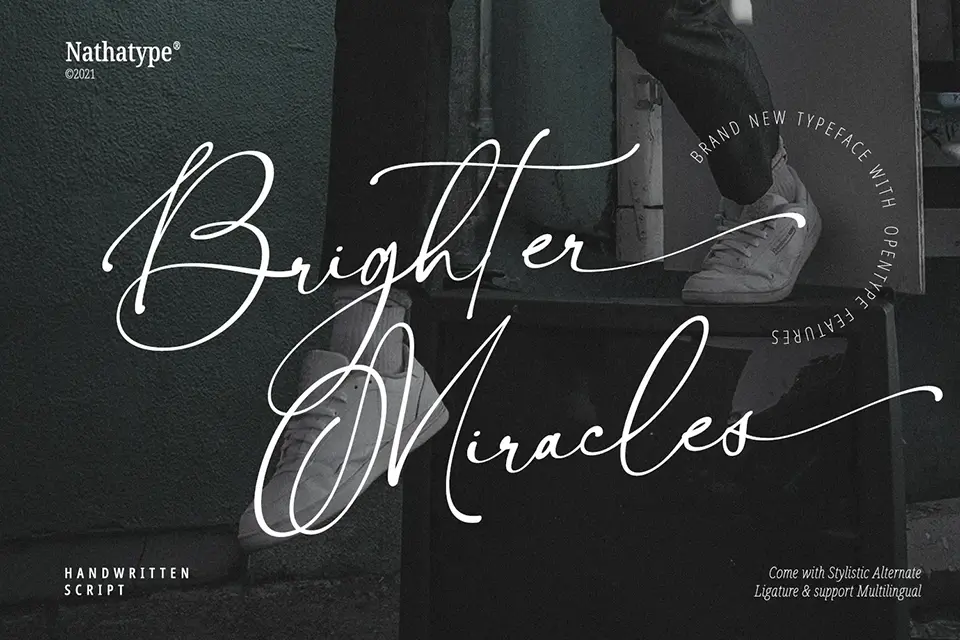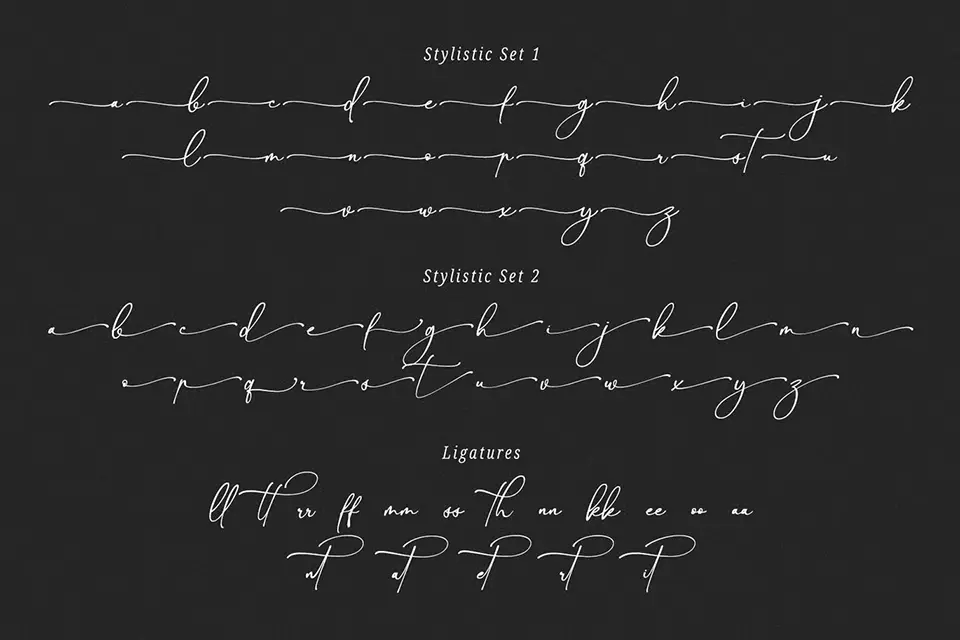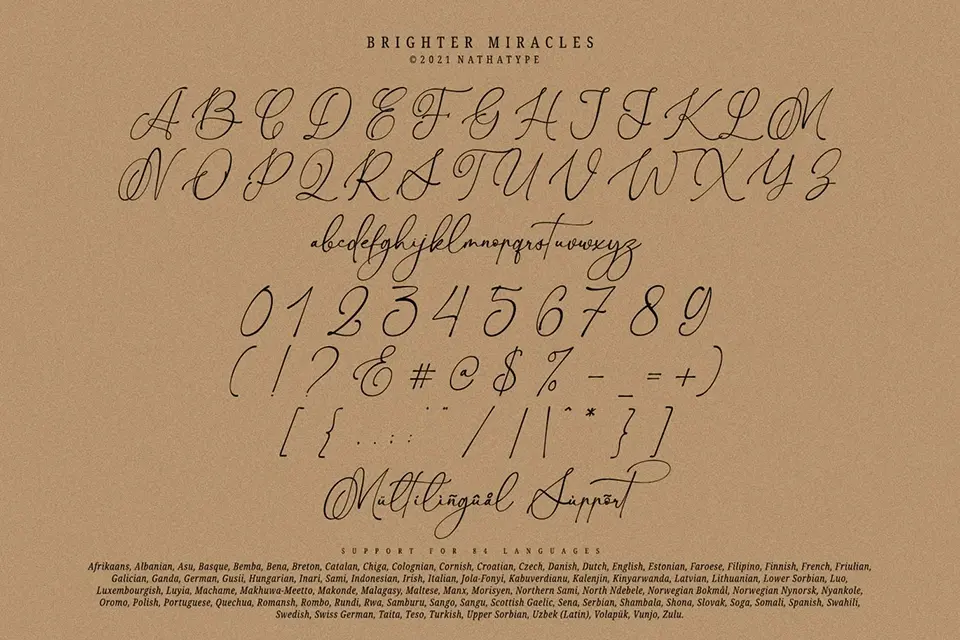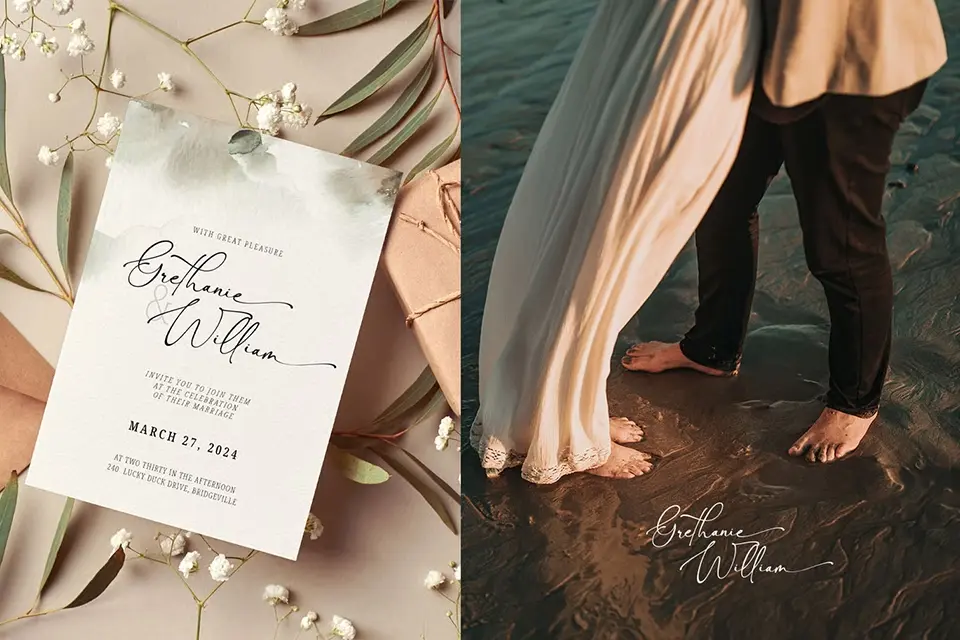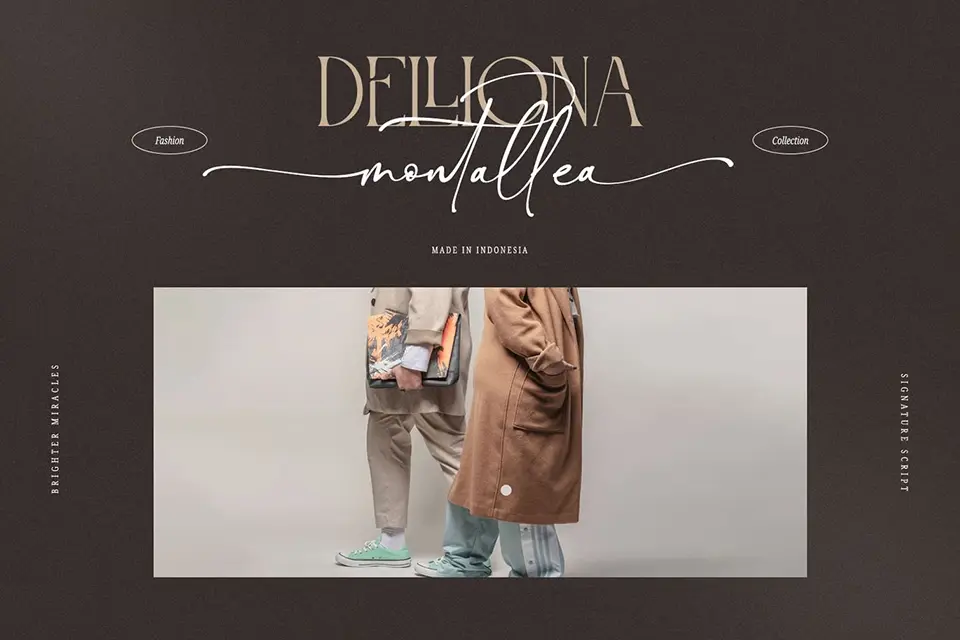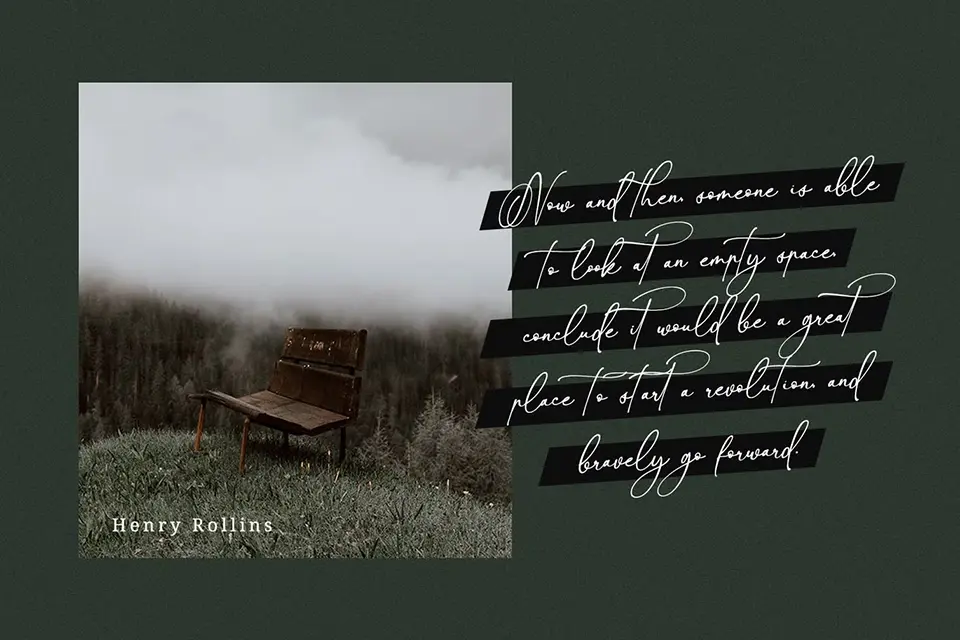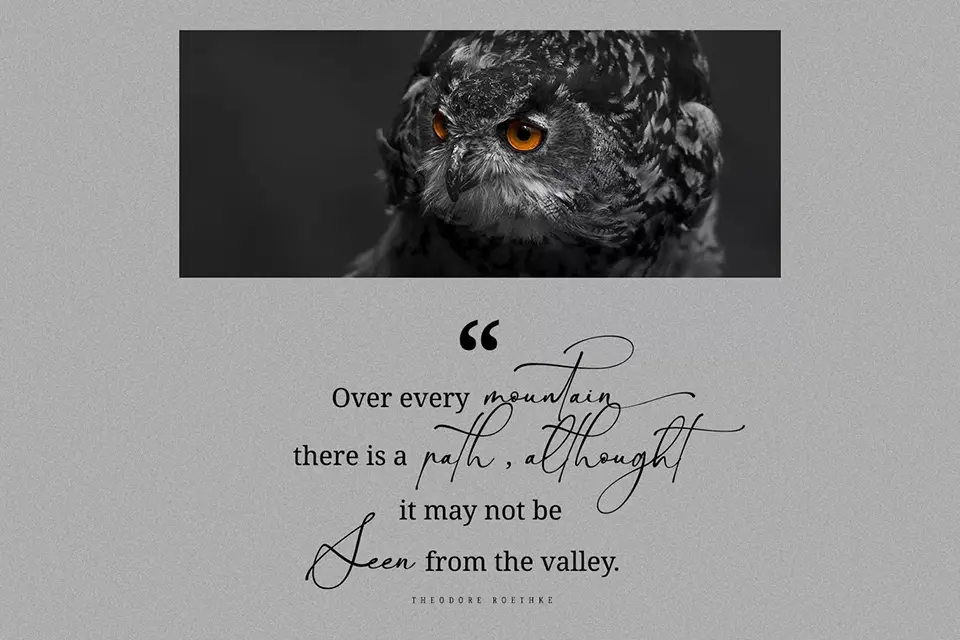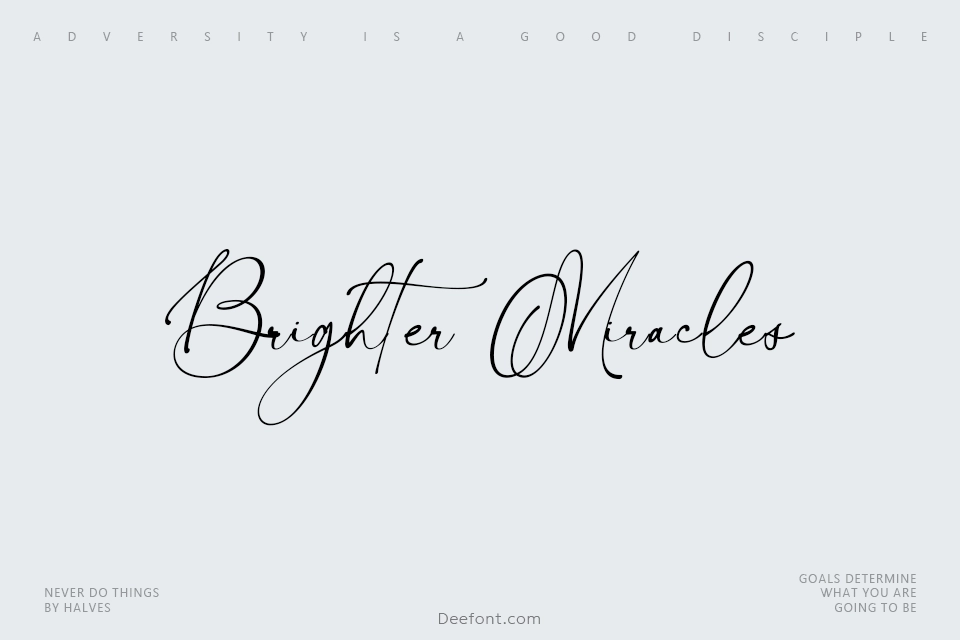
Brighter Miracles Font
Brighter Miracles is a handcrafted handwritten script font designed to bring your branding to life with elegance, modernity and style. Perfect for social media branding projects, fashion designs, printed quotes, packaging, and stylish text overlays. This contemporary script font features sophisticated accents and is ideal for creating signature logos, wedding invitations, and creative design projects that demand a touch of refined beauty.